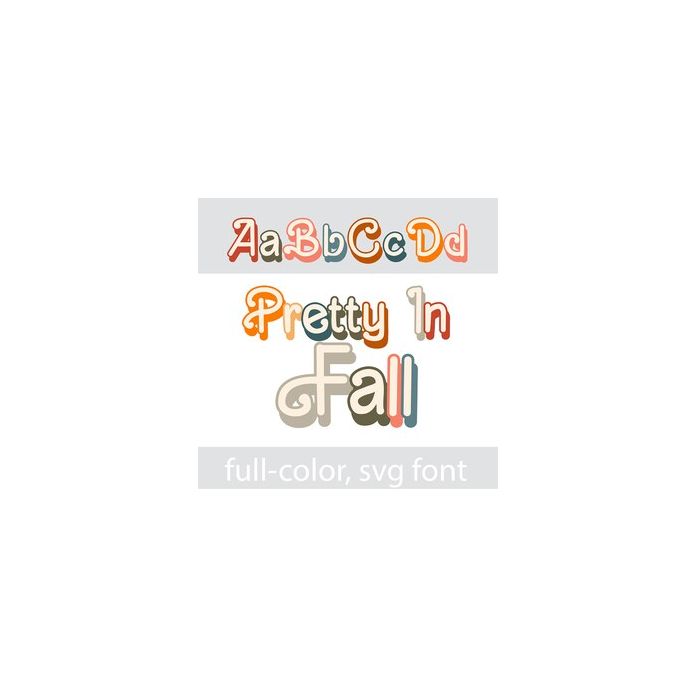
This full-color font features a 3d shadow and a feminine flourished uppercase in a pretty fall-color palette. There is an alt case w/ additional colors you can access through your system or Silhouette's glyph map.